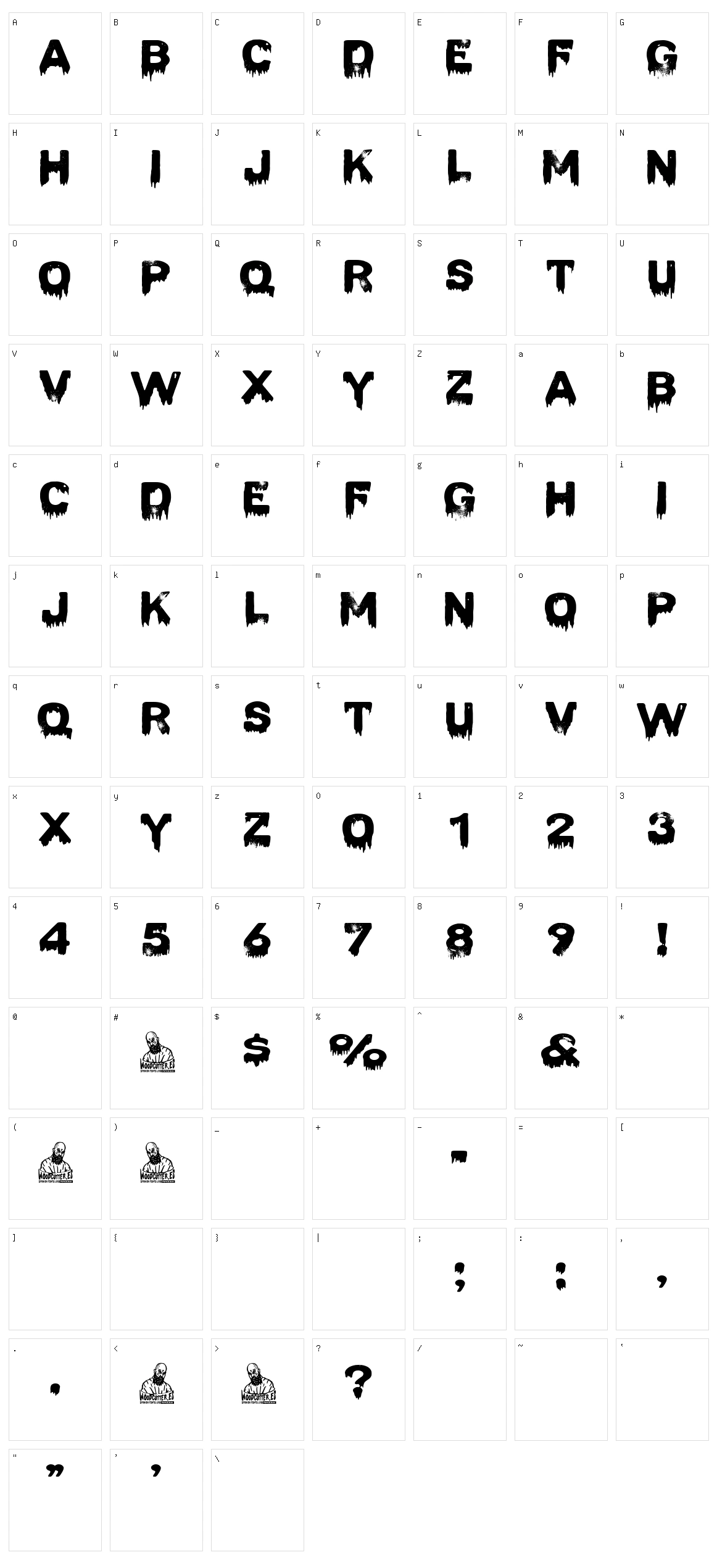
The free font The Death Dog is carefully designed by Woodcutter, showcasing a thoughtful balance of creativity and usability and falls under the Horror font style. When you download the ZIP file, it contains only 169.27 KB of font files, making it lightweight and quick to download. Please review the license details below to understand permitted usage and distribution rights. If license information is not available, we recommend using this font for personal projects only or contacting the author directly for commercial usage permissions.